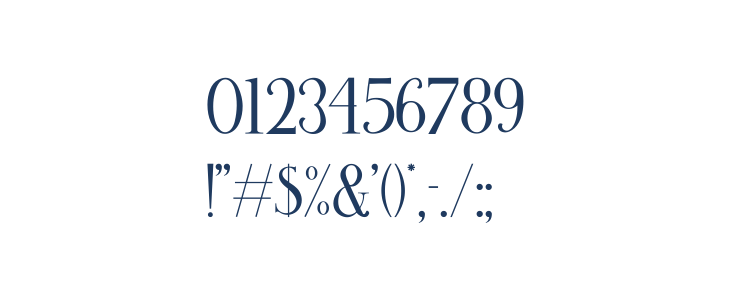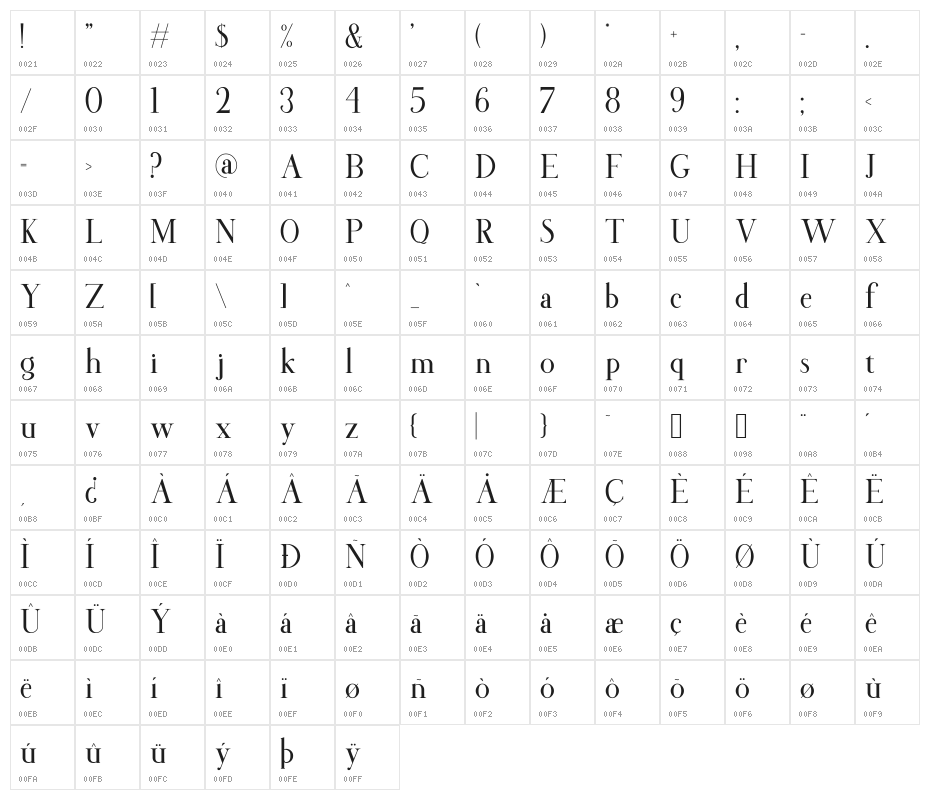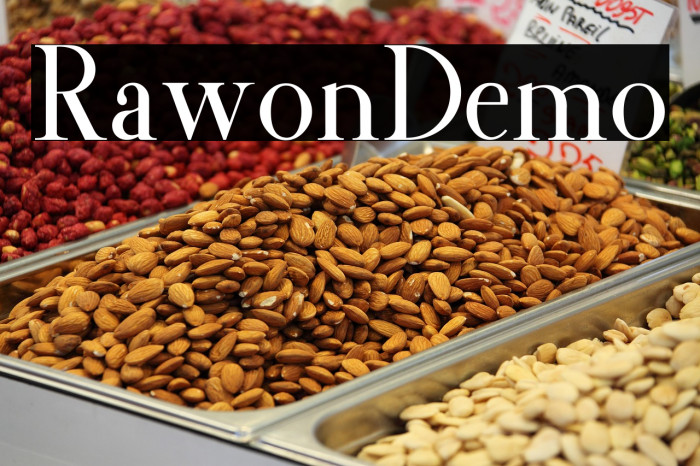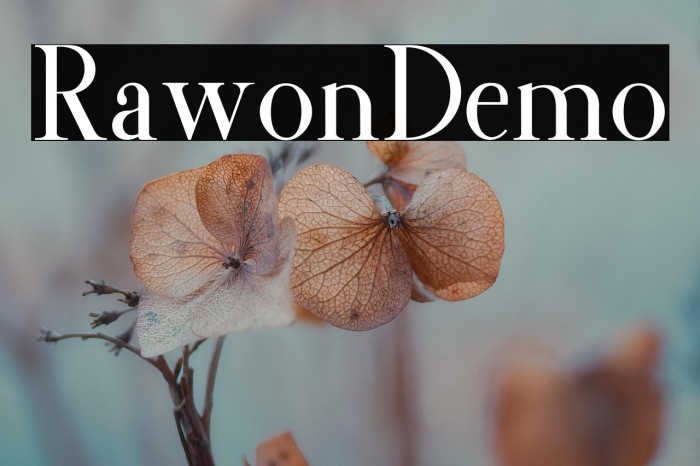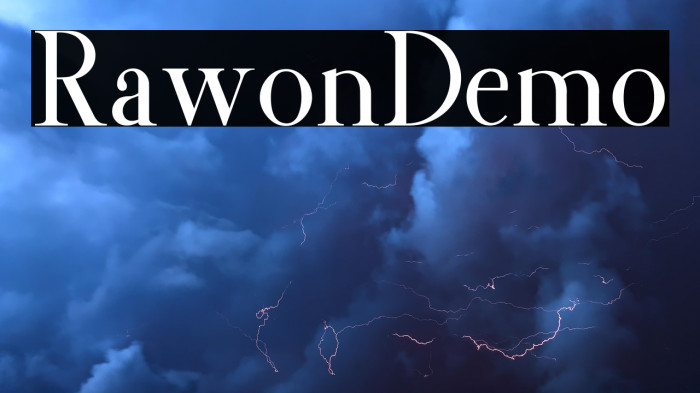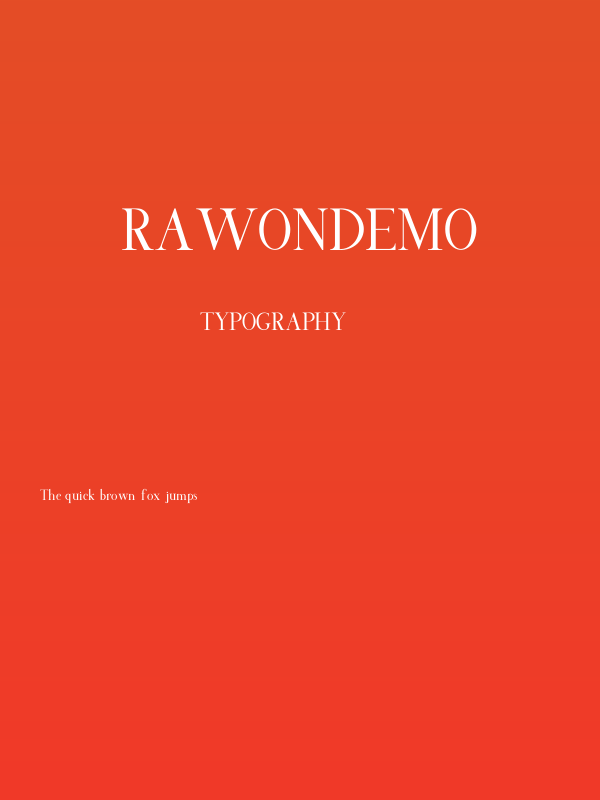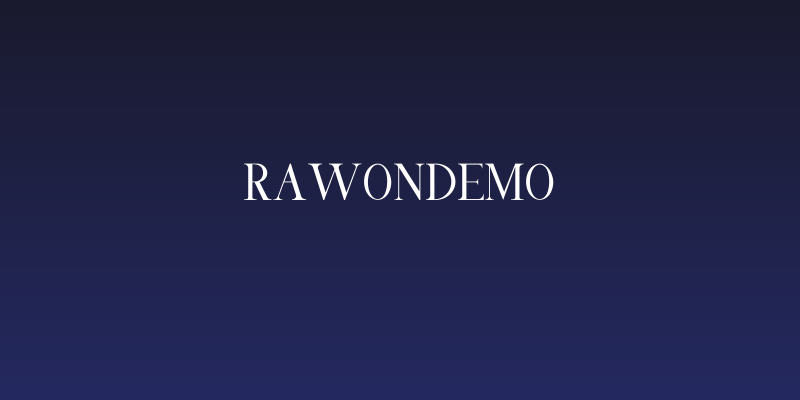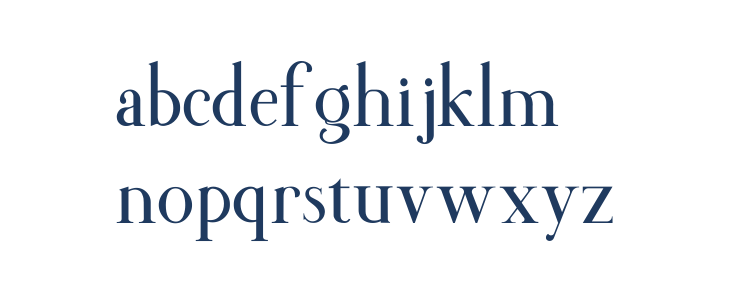
RawonDemo Font
RawonDemo Description
This font exhibits a classic serif style with elegant and refined strokes. The uppercase letters are tall and stately, while the lowercase letters maintain a balanced and harmonious appearance. The numerals are designed with a traditional touch, complementing the overall aesthetic. Special characters are crafted with attention to detail, enhancing the font's versatility. The serifs are pronounced, adding a touch of sophistication and readability. This font is suitable for projects that require a timeless and professional look, making it ideal for editorial design, branding, and formal invitations.
| Proposed Projects | Editorial design, branding, formal invitations, and professional documents. |